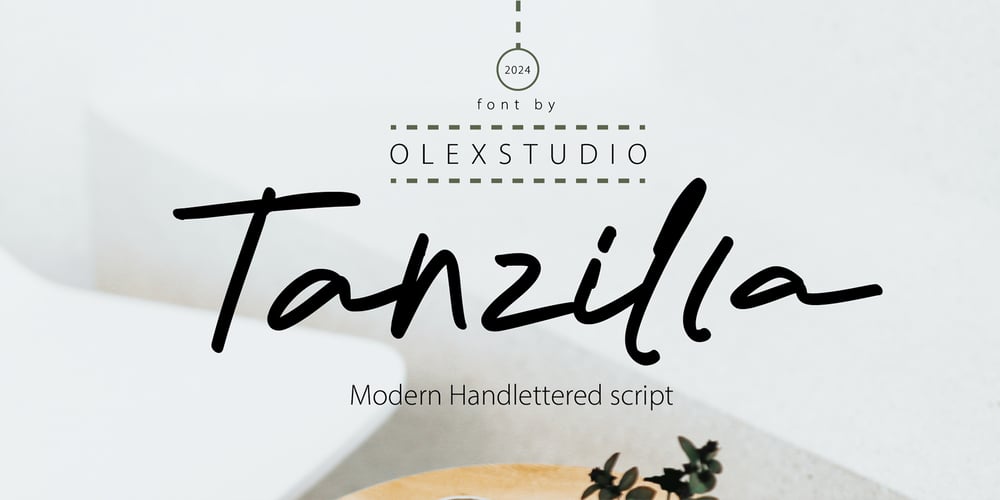
Tanzilla Olstd
Tanzilla Olstd font
Tanzilla Olstd Font Family was designed by Firman Syah and published by Olexstudio. Tanzilla Olstd contains 1 styles and family package options. Tanzilla Olstd – Handlettered font will look gorgeous on all your designs, invitation, poster design, book design, branding materials, logo’s, t-shirt and all project design other.WHAT’S INCLUDEDTanzilla Olstd – Handlettered font contains standard characters, Lowercase, Lowercase alternates, Uppercase, numbers, punctuation, ligatures and international glyphs.Thanks 🙂